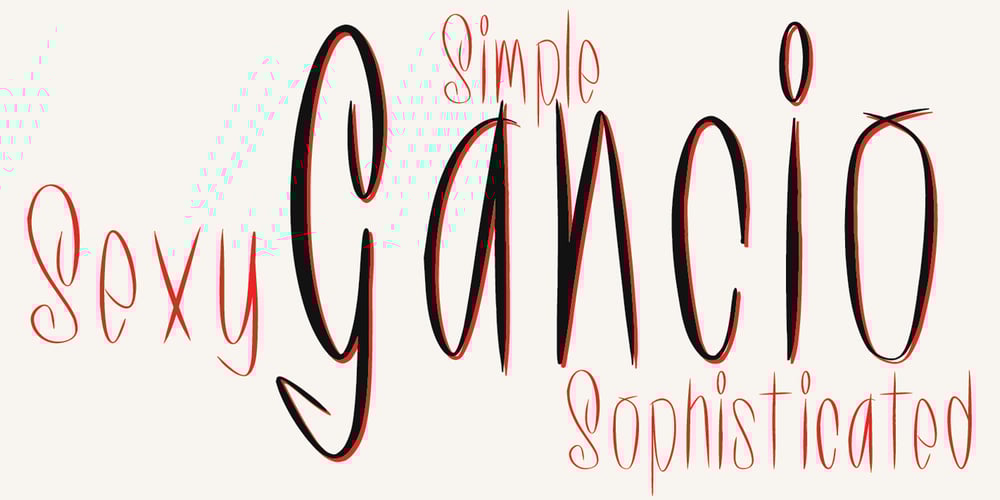
Gancio Font Family was designed by Wilson Thomas and published by Funk King. Gancio contains 1 styles and family package options. Gancio is my first fully realized hand-drawn font and has a robust character set. Its simple lines and sophisticated curves are contemporary, but recall vintage and retro cool. The font is very adaptable and flexible and can be used effectively in a number of themes. Also included are the dingbats used in the poster art.